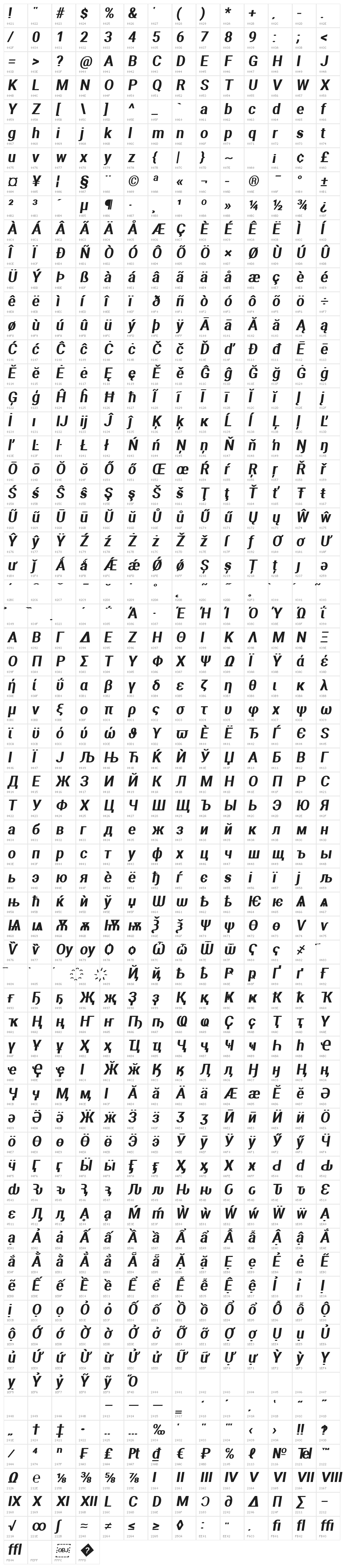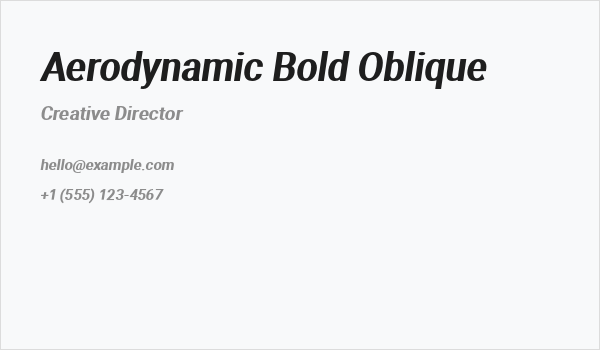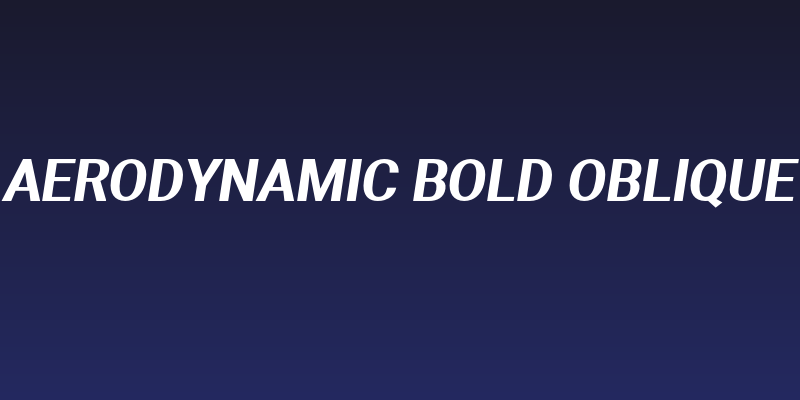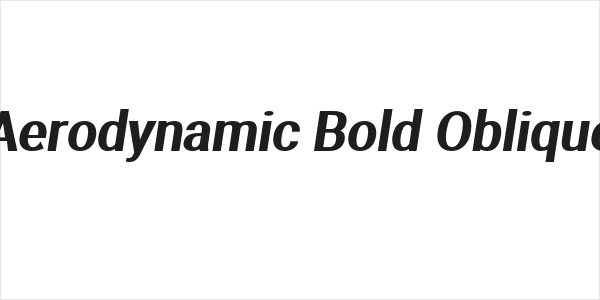
Aerodynamic Bold Oblique Font
Aerodynamic Bold Oblique Description
This font exhibits a bold and dynamic style with an oblique slant, giving it a sense of motion and energy. The characters are well-defined with a consistent stroke weight, making them highly legible. The uppercase and lowercase letters maintain a uniform appearance, while the numerals are clear and distinct. Special characters are included, enhancing its versatility. The overall design is modern and sleek, suitable for various applications where a strong and impactful presence is desired.
| Use Case | Headlines, Logos, Advertising |
| Proposed Projects | Ideal for branding, advertising, sports-related designs, and dynamic headlines. |